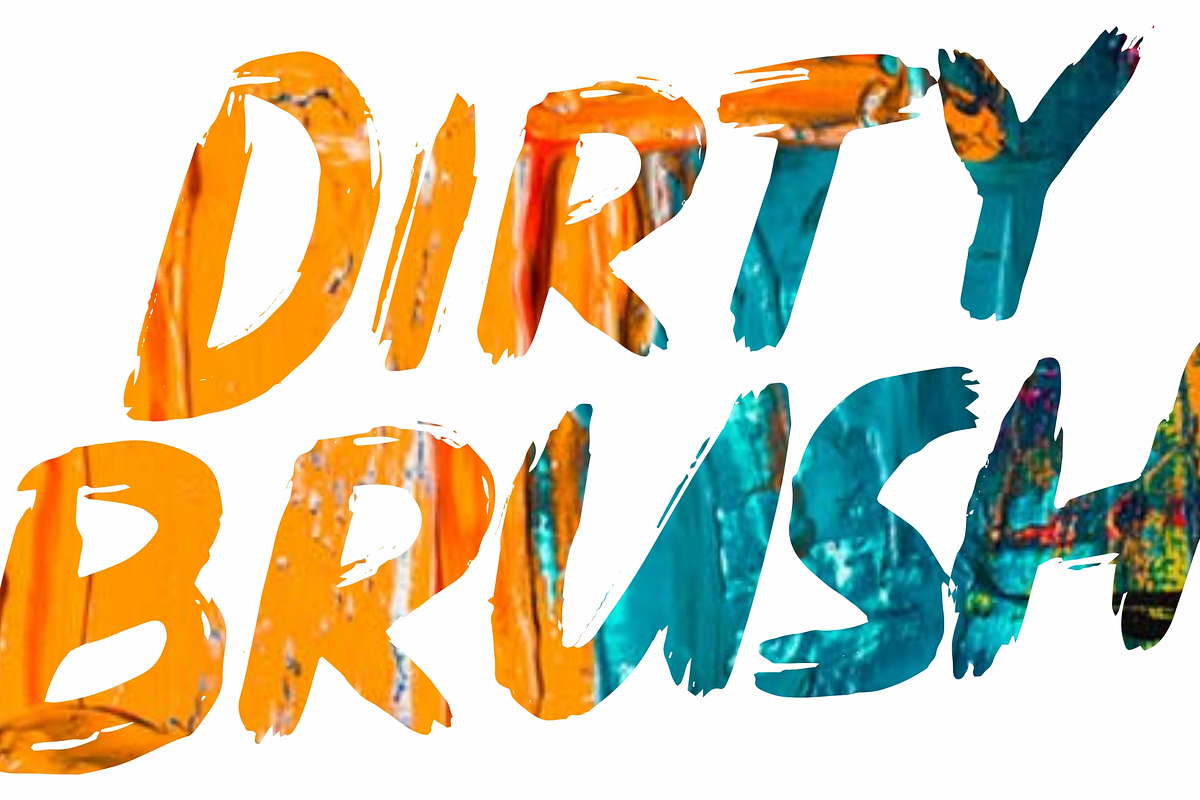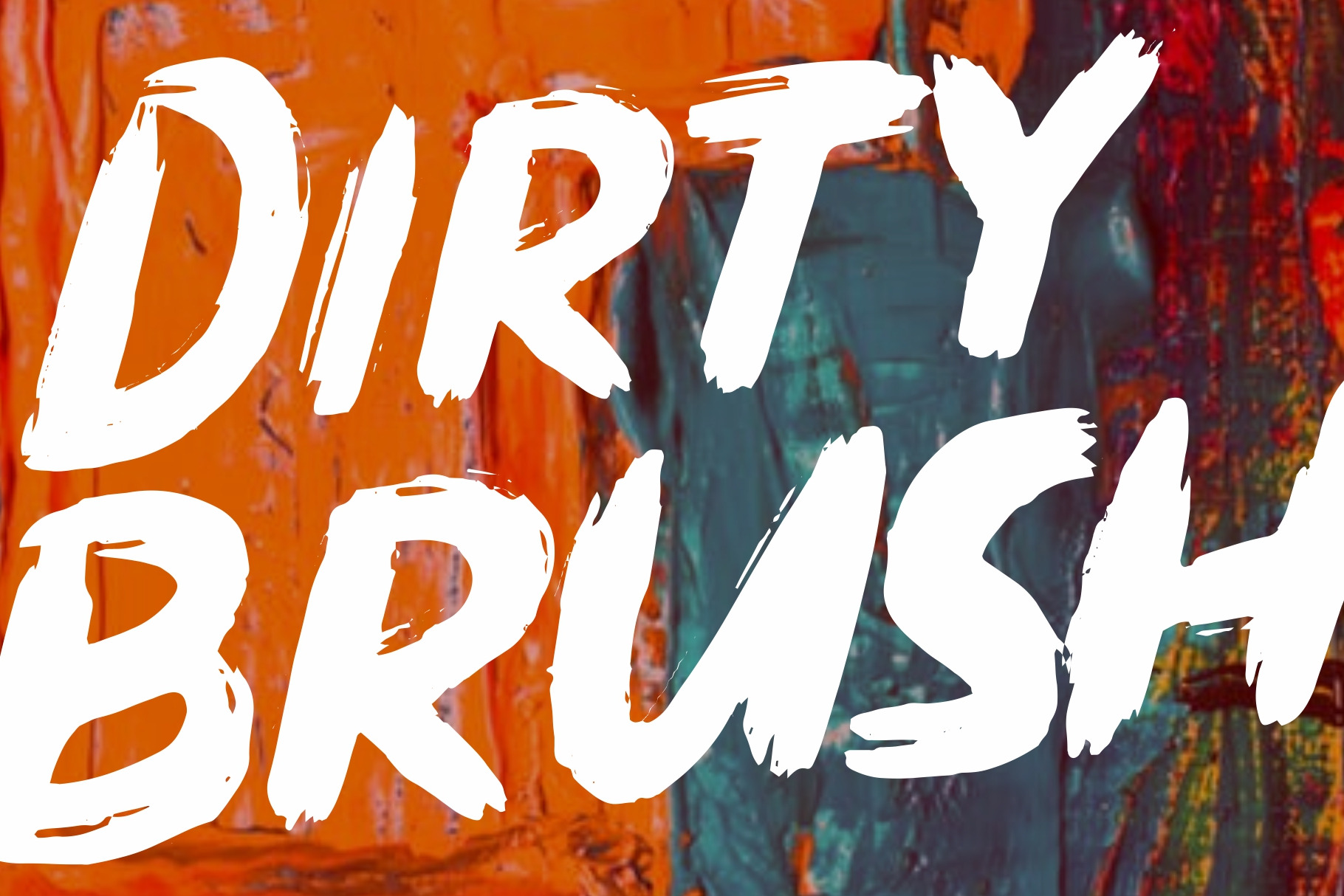
Dirty Brush Font
Introducing DIRTY BRUSH Font
DIRTY BRUSH combines attractive curves with a fresh urban edge; delivering a stylish script which is guaranteed to add an eye-catching appeal to your logo designs, brand imagery, handwritten quotes, product packaging, merchandise & social media posts
- EXTRA SWASH
- Detailed dry brush